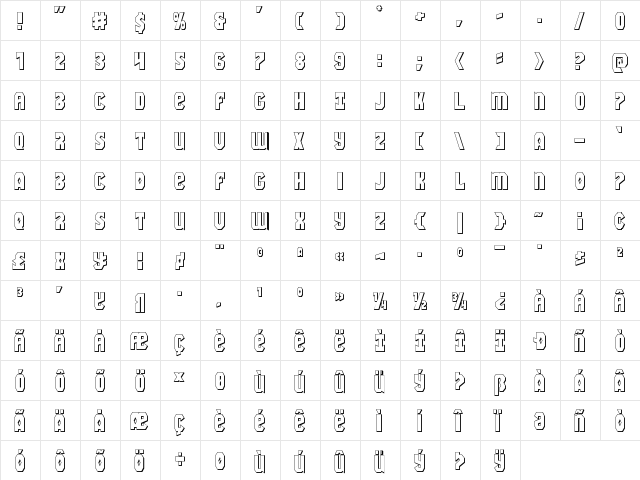
Warrior Nation 3D Regular
Design Context for Warrior Nation 3D Typeface
Warrior Nation 3D is a composed and adaptable typeface that performs quietly and consistently across a wide range of design contexts.